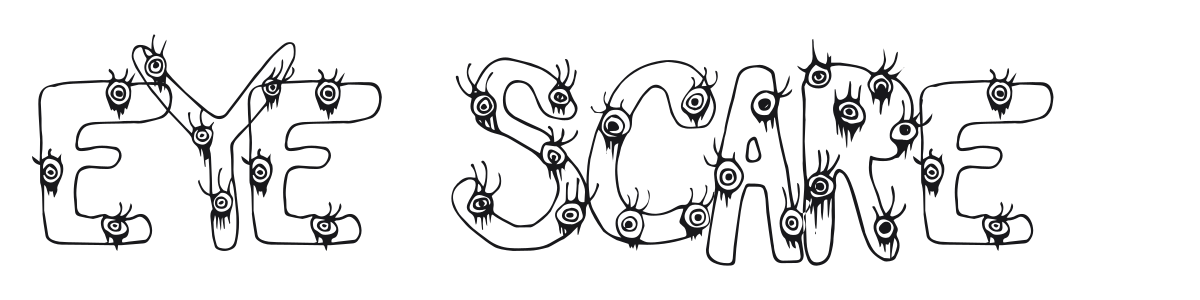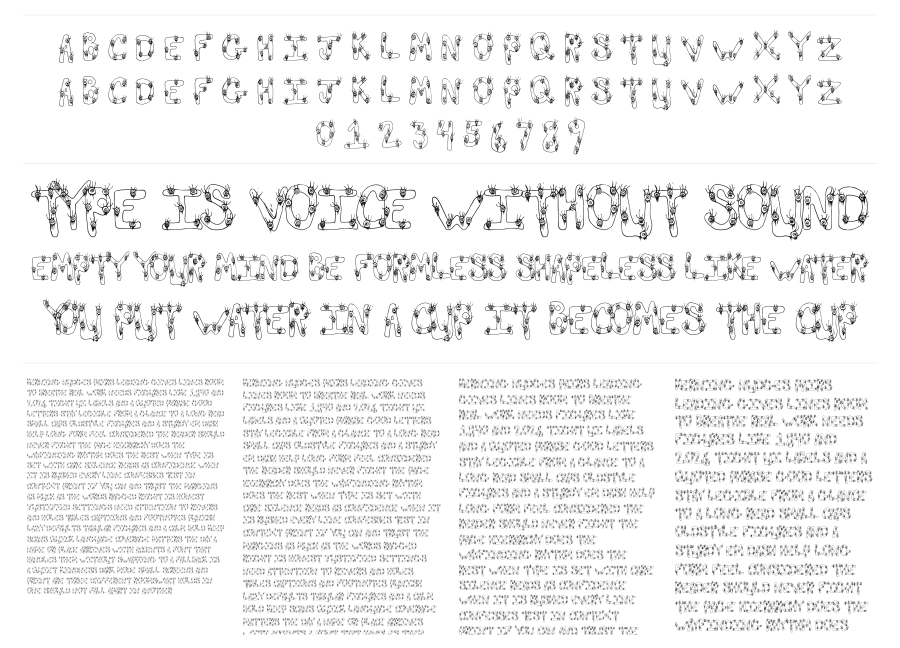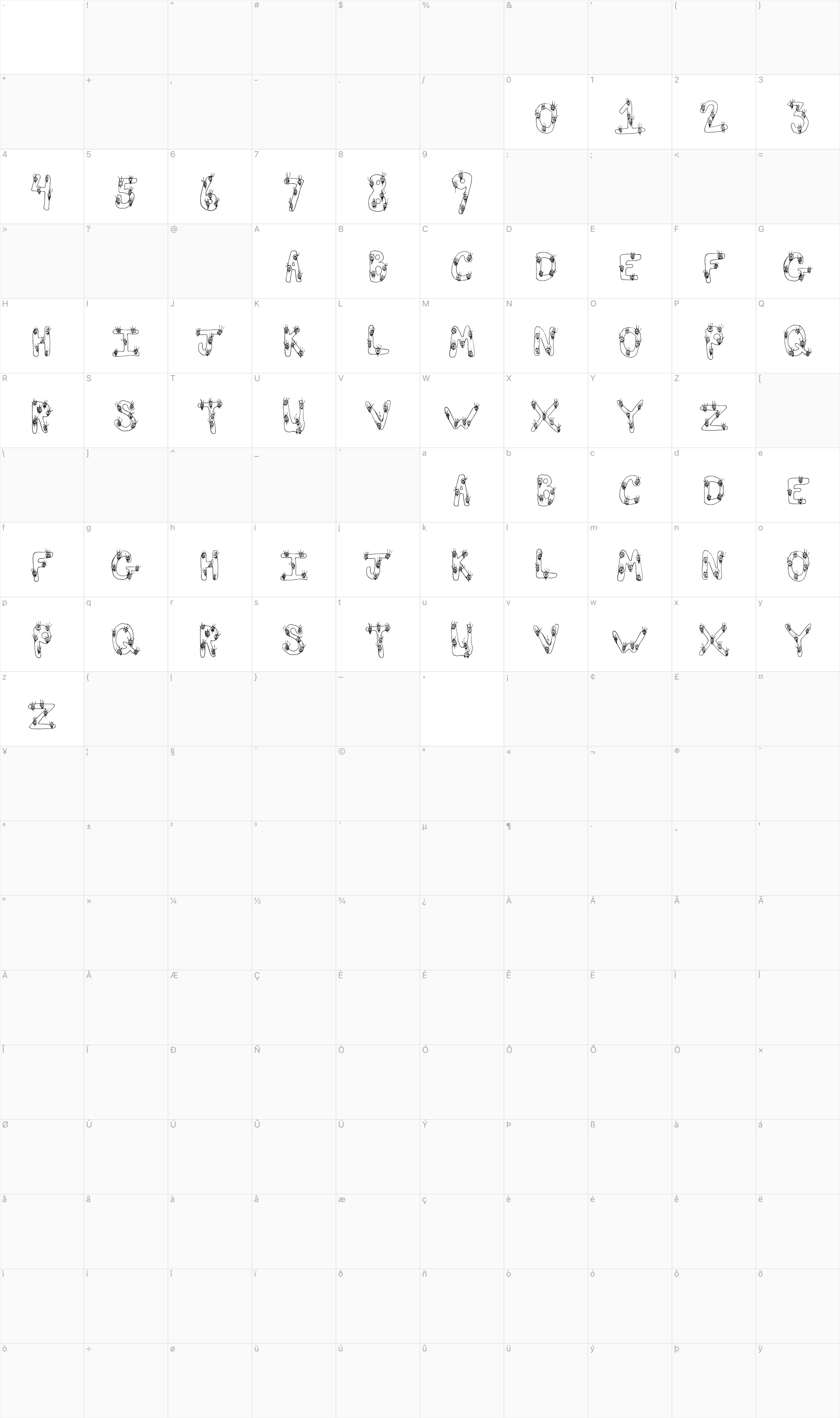
Eye Scare
Eye Scare is a novelty display font where every letter is covered in cartoon eyeballs with tiny eyelashes and spiky details. The wobbly, blob-like outlines give it a hand-drawn, organic feel that sits somewhere between cute and creepy. It belongs on Halloween posters, horror game titles, and anything that needs a dose of playful grotesque.